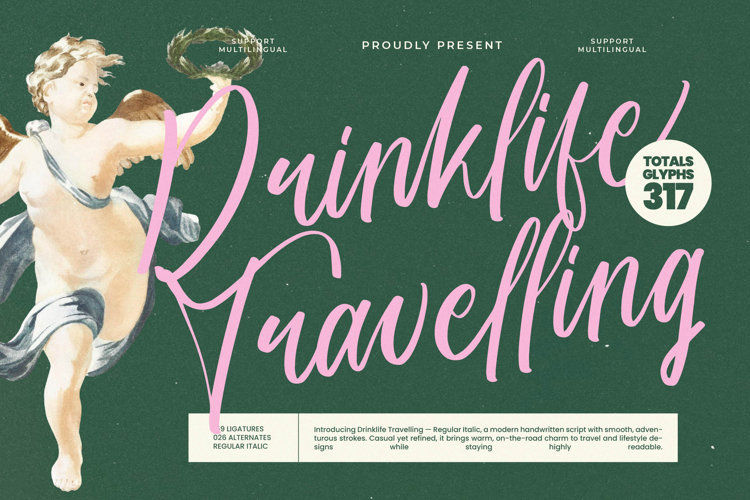
Drinklife Travelling - Modern Handwritten Font
Injecting authenticity and personality into your designs starts here. Introducing Drinklife Travelling - Modern Handwritten Font, a highly expressive script typeface designed to capture the spontaneous charm of genuine handwriting. Its smooth, adventurous strokes and high-contrast weight variation deliver a unique blend of casual warmth and professional refinement, ensuring your message is both memorable and highly legible for modern applications.